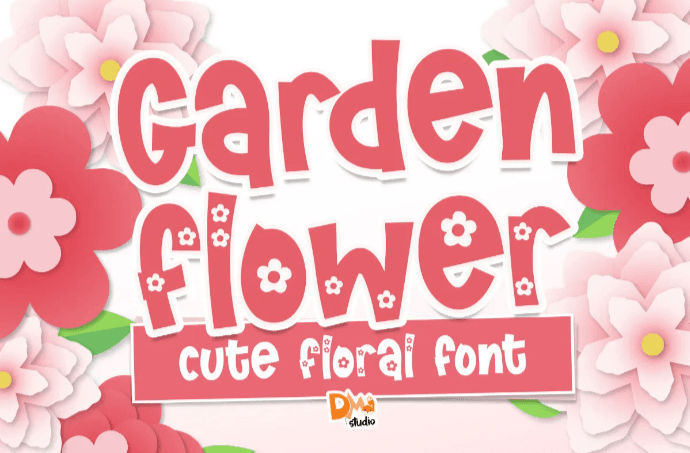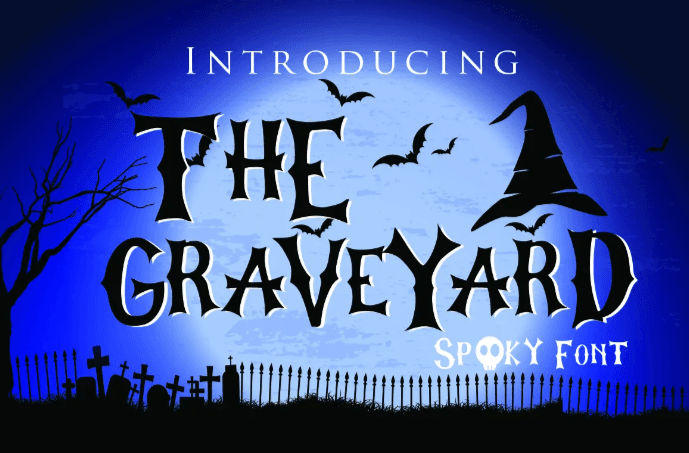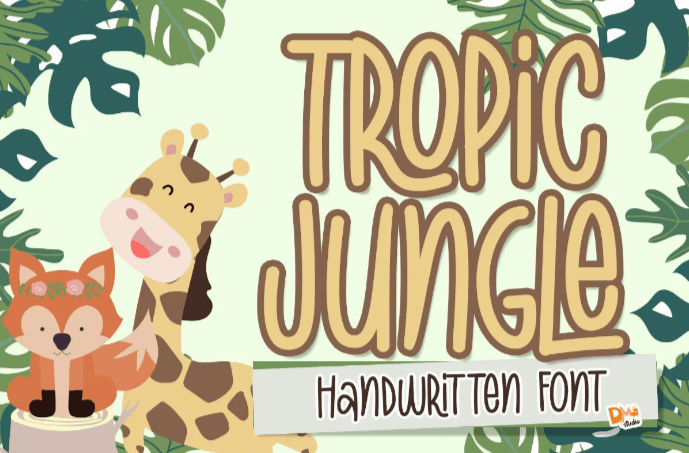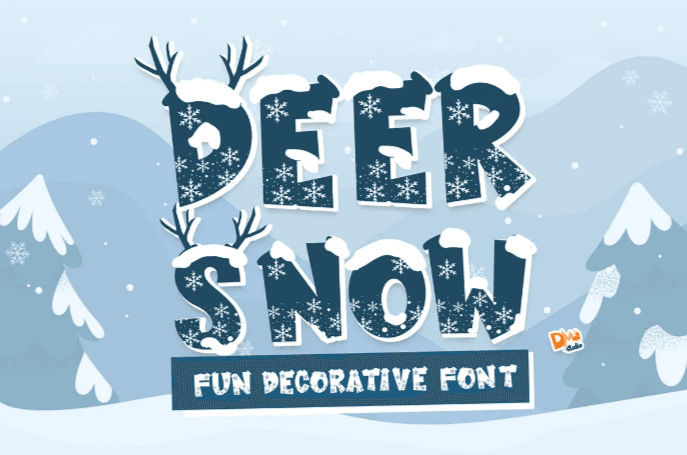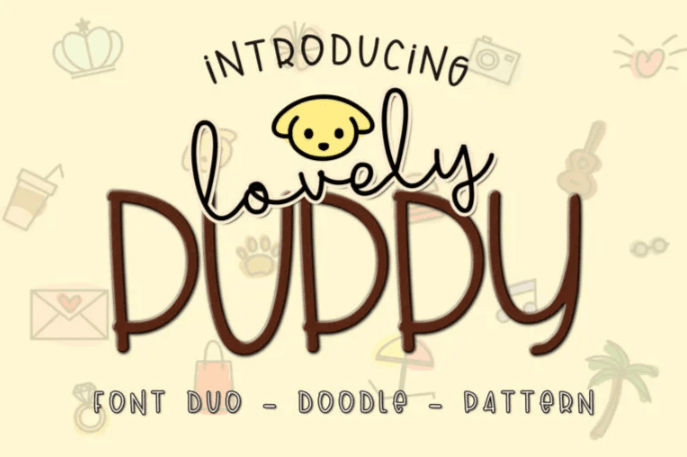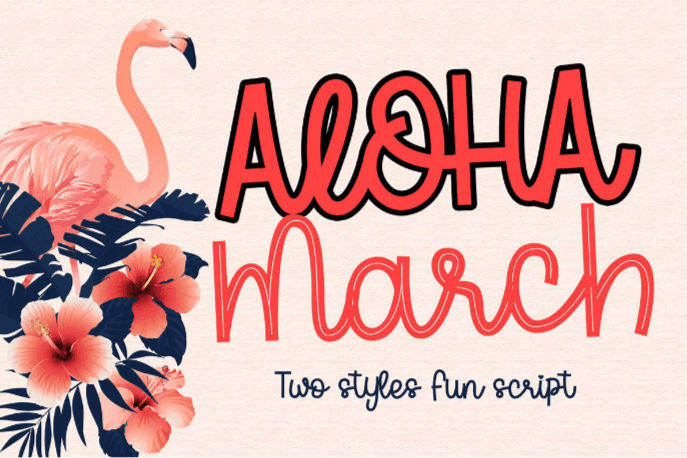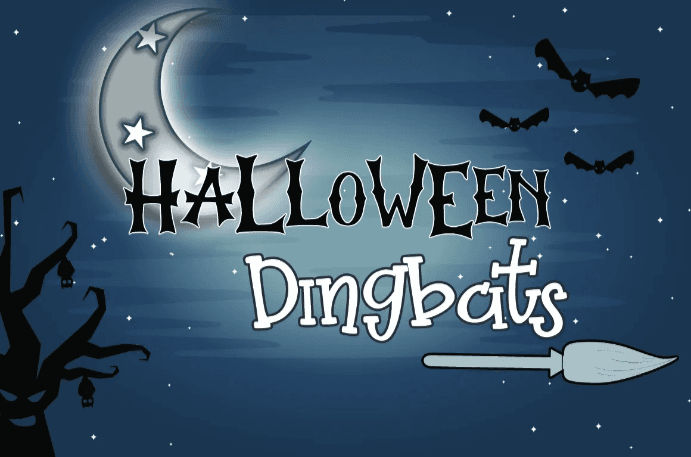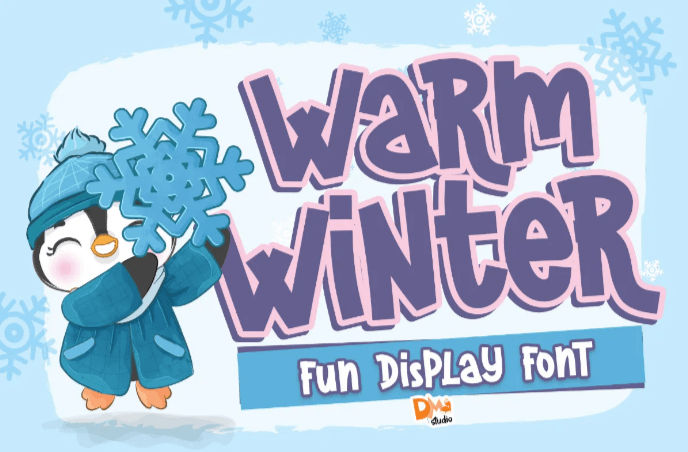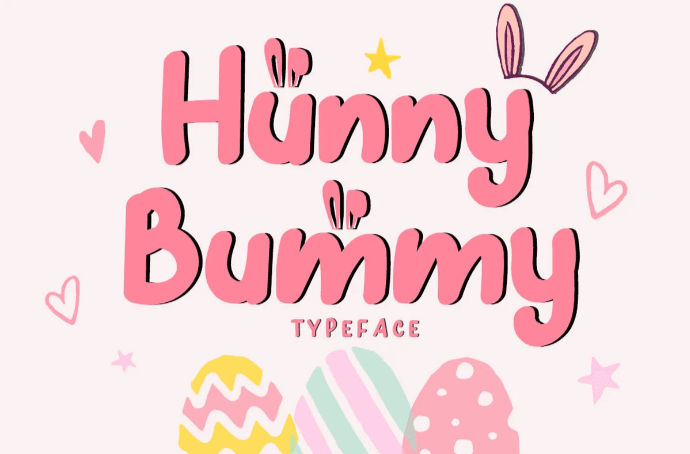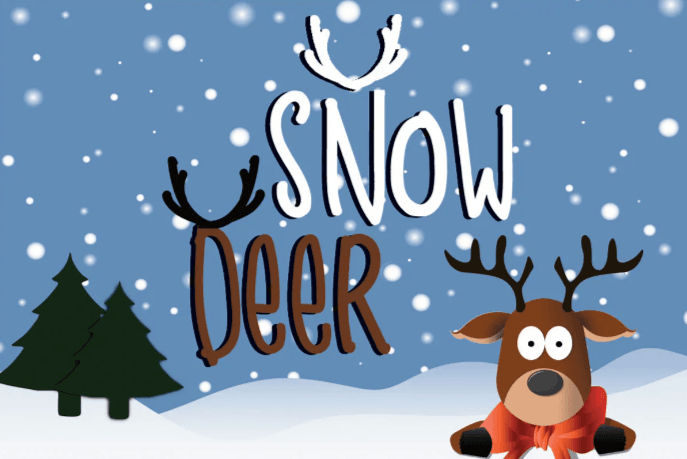
30+ Unique Animal Font Choices that Give Your Design A Buzz
An animal font would be a perfect choice to complete your design with an animal theme or something wild, whimsy, and playful. While some decorations might be overwhelming, in the following list we packed up some adorable ones with adequate readability. Let’s scan them below!
31 Animal Fonts for Inspiring Designs
1. Holland Dingbats Font
Holland Font, Hlland Dingbats Font
Holland Font, Hlland Dingbats Font | Source: dmletterstudio.com
Bring a Holland atmosphere to your project. Holland Dingbats font has various quirky decorations for a more enjoyable design, including a 2D animal illustration.
2. Lovely Puppy Font
Adorable font, Lovely Puppy font
Adorable font, Lovely Puppy font | source: dmletterstudio.com
Lovely Puppy offers several variants. This font has a cute sans-serif, lovely script, and oddball doodles, a real complete pack for your design!
3. Halloween Dingbats
Horror-themed font, Halloween Dingbats font
Horror-themed font, Halloween Dingbats font | source: dmletterstudio.com
This Halloween Dingbats font has cute horror illustrations of owls, bats, and cats. Surely a great choice for seasonal design themes!
4. Hunny Bummy
Easter-themed font, Hunny Bummy font
Easter-themed font, Hunny Bummy font | source: dmletterstudio.com
You won’t find any complete animal illustration as decoration in the Hunny Bummy typeface. Yet, each of the uppercase and lowercase has versions decorated with cute bunny ears.
5. Snow Deer
Winter-themed font, Snow Deer font
Winter-themed font, Snow Deer font | source: dmletterstudio.com
By combining the regular letters along the glyphs with the snow-deer ears ornament of this font, your text will look more attractive and entertaining.
6. Unicorn Magic
Cute font, Unicorn Magic font
Cute font, Unicorn Magic font | source: dmletterstudio.com
This cute font with a unicorn horn-like ornament will touch up your designs with a magical spell!
7. Honey Beezy
Summer-themed font, Honey Beezy font
Summer-themed font, Honey Beezy font | source: dmletterstudio.com
Honey Beezy evokes the summer vibe! The decoration in bee and springtime stuff shapes will stimulate a positive feeling in your design.
8. Cutie Monster
Oddball Monster font, Cutie Monster font
Oddball Monster font, Cutie Monster font | source: dmletterstudio.com
Cutie Monster might be the most oddball font animal you’ve ever seen. But, it’s a good thing because it stands out and is recognizable!
9. Spooky Webbie
Horror-themed font, Spooky Webbie font
Horror-themed font, Spooky Webbie font | source: dmletterstudio.com
Spooky Webbie is an exceptional font with spider web decorations. Good on invitations or book covers related to spooky things.
10. Meow Paw
Cat-themed font, Meow Paw font
Cat-themed font, Meow Paw font | source: dmletterstudio.com
Meow Paw font has a playful design with cat paw ornaments. Perfect for cat lovers!
11. Garden Flower Font
Floral font, Garden Flower font
Floral font, Garden Flower font | source: dmletterstudio.com
Floral font can match well with an animal theme, you know. Garden Flower font balances the cheerful vibe of your animal-themed design.
12. Bubble Leaf Font
Nature font, Bubble Leaf font
Nature font, Bubble Leaf font | source: dmletterstudio.com
With Bubble Leaf Handwritten font, you can bring a calmer, more nature-related atmosphere to your designs.
13. The Graveyard
Horror-themed font, The Graveyard font
Horror-themed font, The Graveyard font | source: dmletterstudio.com
Another animal font for Halloween with a robust and artistic design is The Graveyard Spooky font. The font also has spooky doodles to fulfill your Halloween spirit.
14. Gobbie Gobble
Thanksgiving font, Gobbie Gobble font
Thanksgiving font, Gobbie Gobble font | source: dmletterstudio.com
Goobie Gobble font allows you to create code languages using the icons that represent each of the alphabets. A playfully outstanding font choice!
15. Mister Rocky
Children font, Mister Rocky font
Children font, Mister Rocky font | source: dmletterstudio.com
Trace of raccoon’s tail in each of the letters of Mister Rocky font making it an indelible animal font for animal children’s books!
16. Tropic Jungle
Nature font, Tropic Jungle font
Nature font, Tropic Jungle font | source: dmletterstudio.com
Tropic Jungle looks retro yet adventurous. A great pair for designing children’s products, like book covers, merchandise, or t-shirts.
17. Deer Snow
Christmas font, Deer Snow font
Christmas font, Deer Snow font | source: dmletterstudio.com